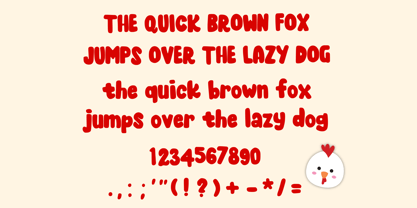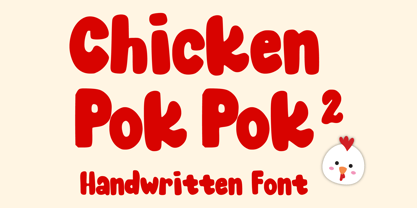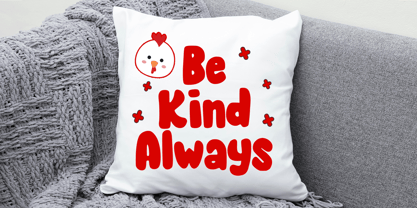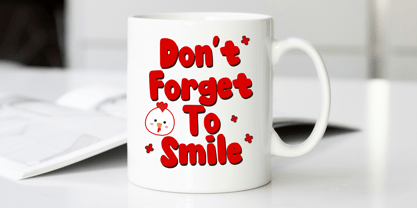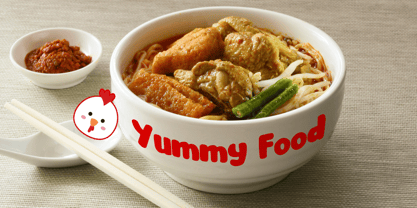
Chicken Pok Pok 2
by Mvmet
The Chicken Pok Pok 2 Font Family was designed by Gabriel Valentinus and published by Mvmet. Chicken Pok Pok 2 contains 1 styles.
Chicken Pok Pok 2 is a cute and versatile handwritten font, suitable for your food and beverage themed designs and more. You can use it for anything ranging from t-shirts, kids’ book designs, and greeting cards to stickers and posters, you can use it for your food and beverage business or anything that needs a fun touch. Fall in love with its incredibly versatile style, and use it to create lovely designs!
Designers: Gabriel Valentinus
Publisher: Mvmet
Foundry: Mvmet
Design Owner: Mvmet